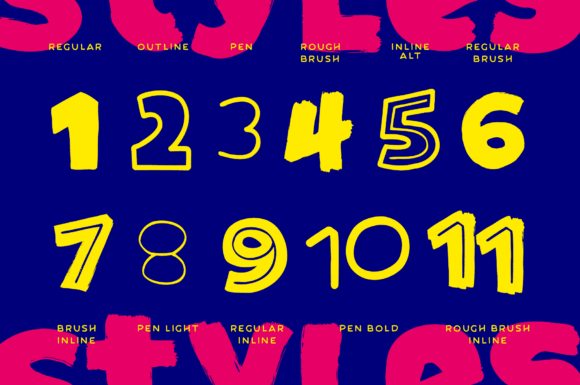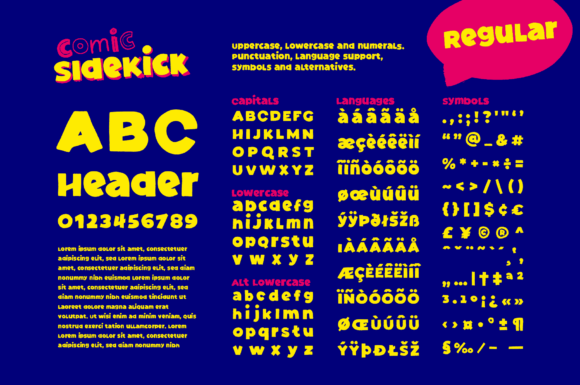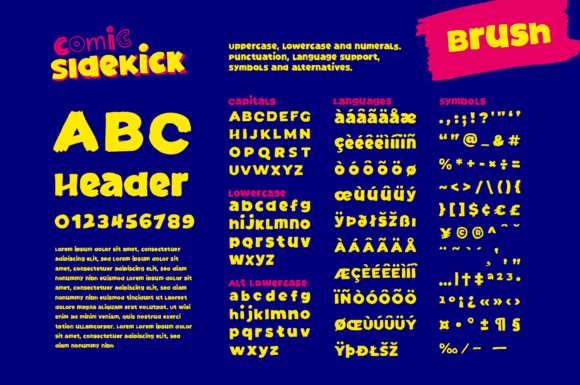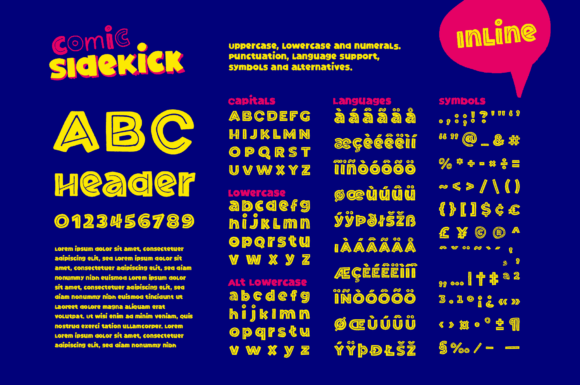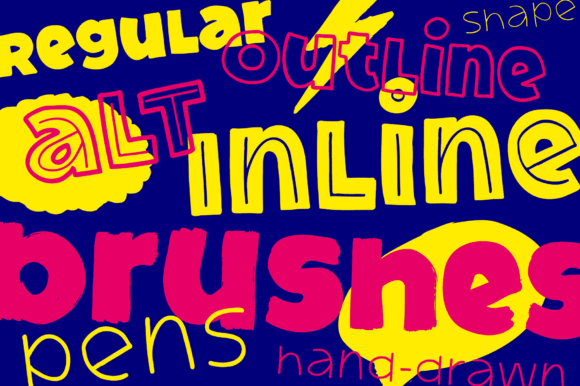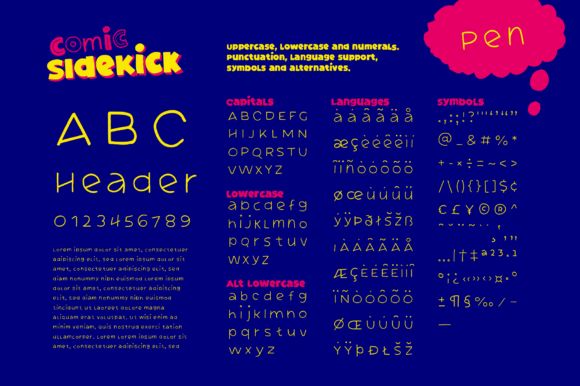
Introduction to Comic Sidekick Font
Comic Sidekick is a cool, thick lettered and friendly display font.
It embodies playfulness and authenticity and is the perfect choice for any children activity or school project .